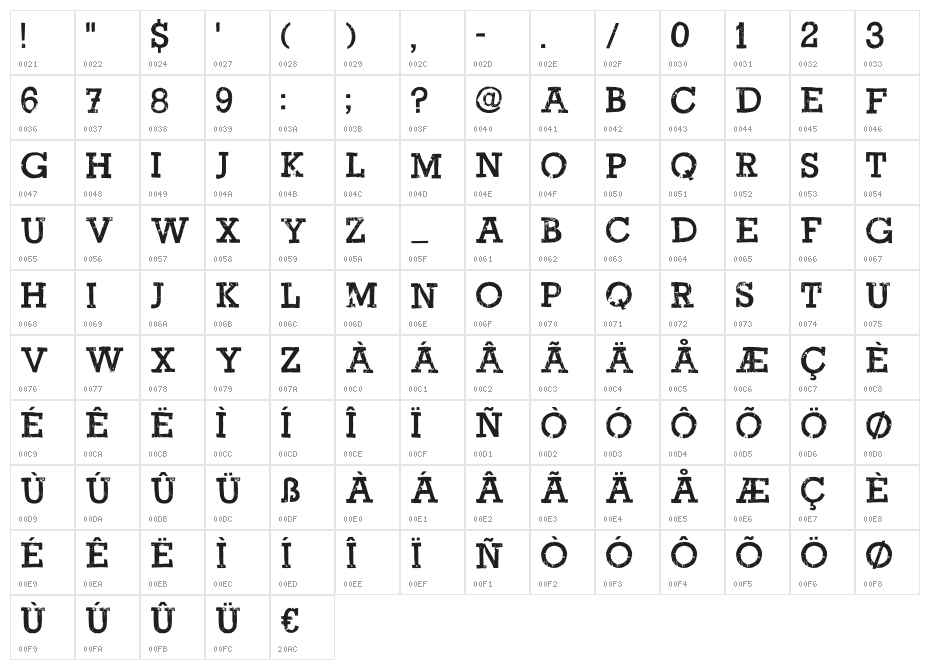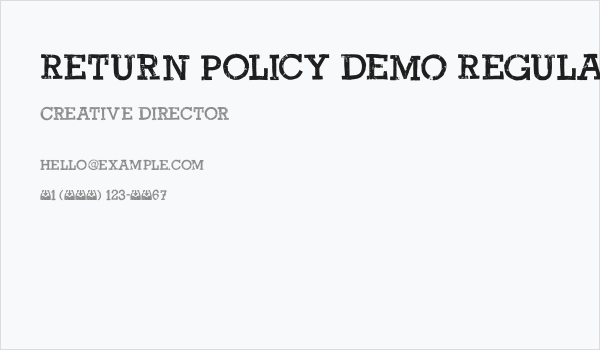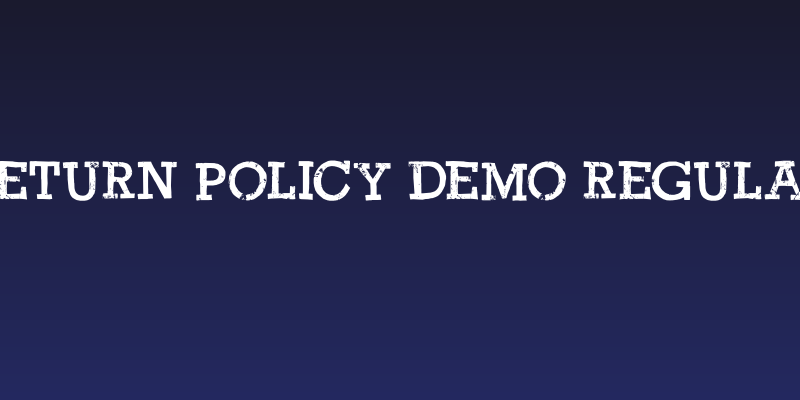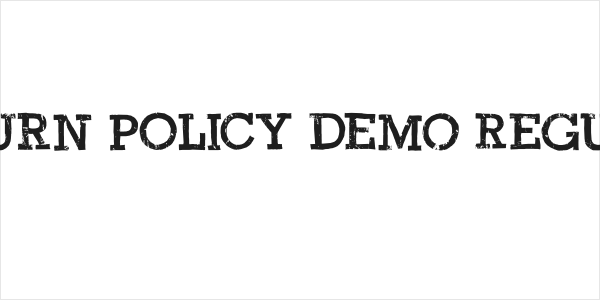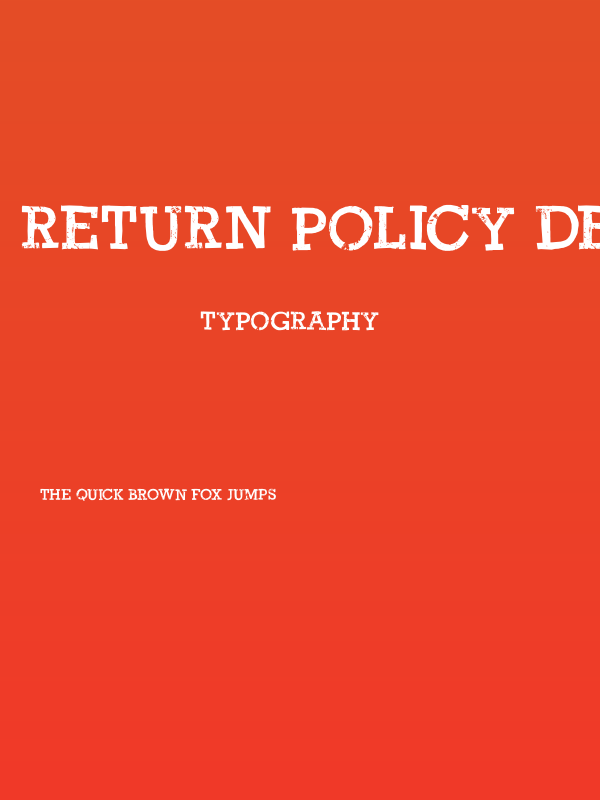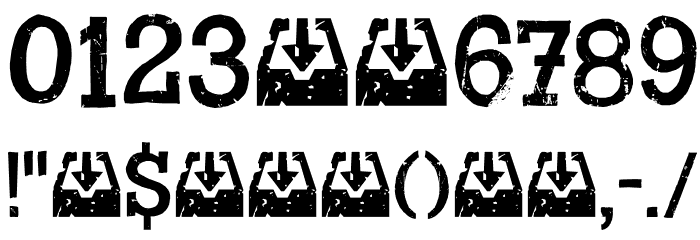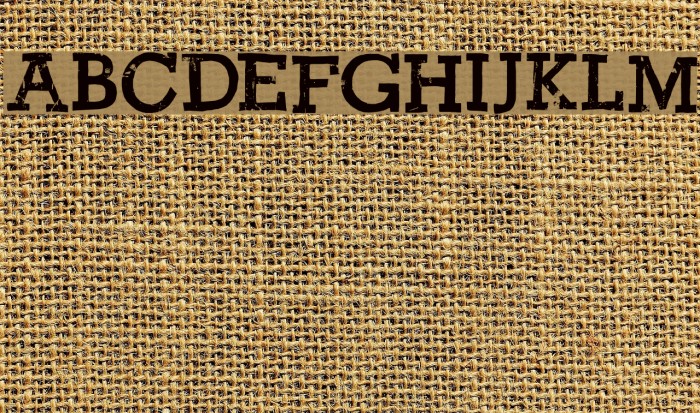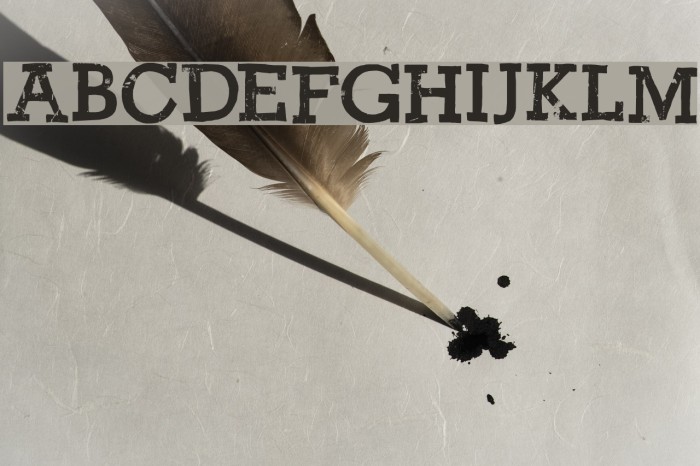
Return Policy DEMO Regular Font
Return Policy DEMO Regular Description
This font features a distressed, grunge style with a stencil-like appearance. The characters are bold and have a rough texture, giving them a worn, vintage look. The uppercase and lowercase letters maintain a consistent style, with slightly uneven edges that add to the rugged aesthetic. The numbers and special characters follow the same design, ensuring a cohesive look across all glyphs. This font is ideal for projects that require a bold, eye-catching display with a touch of nostalgia and edginess.
| Proposed Projects | Perfect for posters, album covers, branding, and any design needing a vintage, edgy look. |